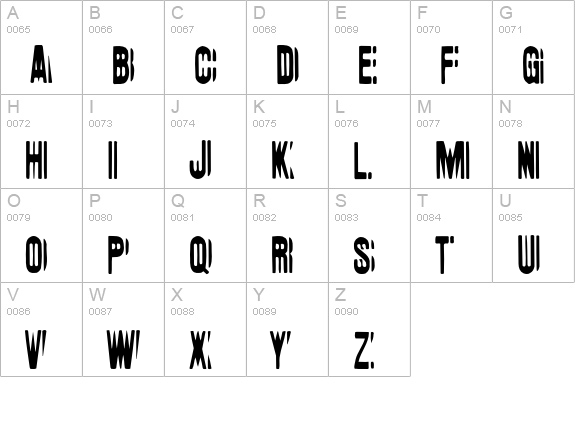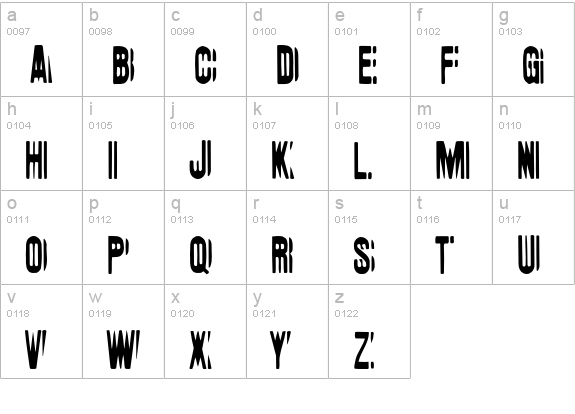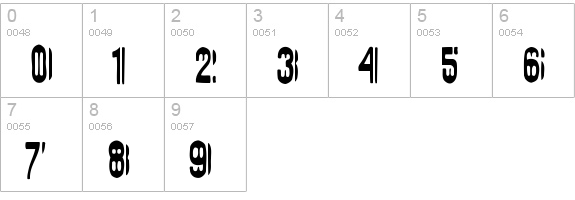
ElectricCircus Font Details
ElectricCircus font is a captivating and electrifying typeface that will bring a dynamic and modern touch to any design project. With its bold and edgy aesthetic, ElectricCircus is perfect for making a statement and standing out from the crowd. This versatile font is ideal for a wide range of applications, from branding and advertising to posters and social media graphics. And the best part? ElectricCircus font is available for free download at FontsMarket.com, making it easily accessible to designers and creatives looking to add a unique flair to their work. Don't miss out on this exciting and vibrant font that is sure to make your designs shine!